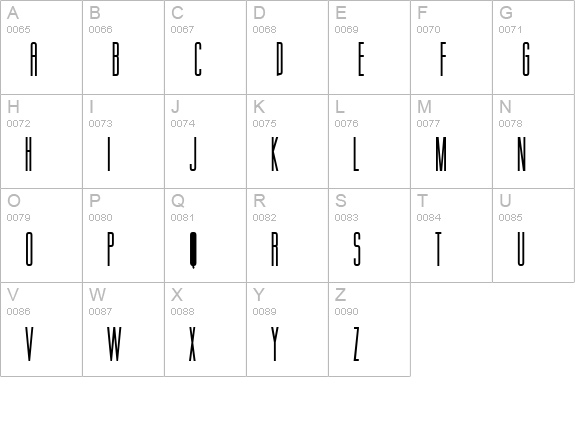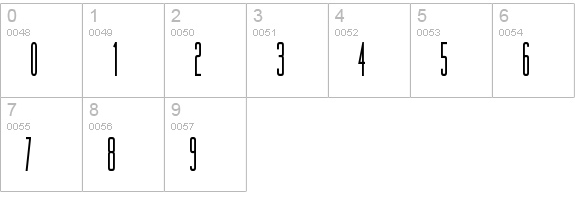
Gorgio Condensed Bold Font Details
Gorgio Condensed Bold is a strong, high-contrast, condensed-width variant in the Gorgio typeface family \xE2\x80\x94 well suited to headlines, attention-grabbing titles, and strong calls-to-action.
Gorgio Condensed Bold is a striking and modern typeface that exudes confidence and sophistication. Its bold and condensed design makes it perfect for headlines, titles, and other display purposes where you want to make a statement. The sharp angles and clean lines give this font a contemporary edge that will surely catch the eye of your audience. What makes Gorgio Condensed Bold even more appealing is that it is available for free download at FontsMarket.com. This means you can easily access this stylish and versatile font without any cost, making it a valuable addition to your design toolkit. Whether you are working on branding, advertising, or any other project that requires a bold and impactful font, Gorgio Condensed Bold is sure to deliver the impact you desire. So don't miss out on this fantastic opportunity to elevate your designs with this stunning typeface for free!